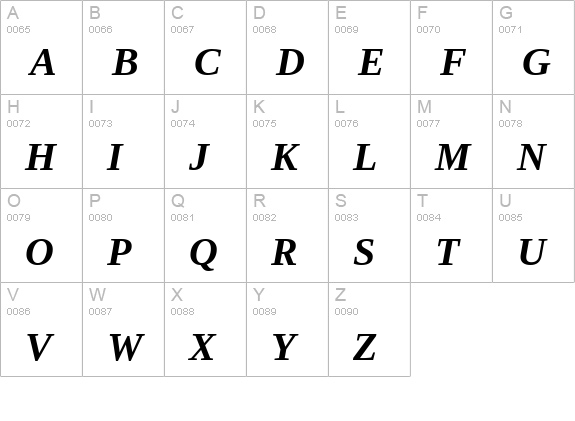
Liberation Serif Bold Italic Font Details
Liberation Serif Bold Italic is a strong, high-contrast, italic variant in the Liberation typeface family \xE2\x80\x94 well suited to headlines, attention-grabbing titles, and strong calls-to-action.
Liberation Serif Bold Italic font exudes a powerful and elegant presence with its bold and slanted design. The combination of thick strokes and graceful italics adds a touch of sophistication to any text it adorns. Whether used for headings, titles, or body text, Liberation Serif Bold Italic commands attention and conveys a sense of importance. This font is not only visually striking but also versatile, making it suitable for a wide range of design projects. From professional documents to creative endeavors, Liberation Serif Bold Italic adds a sense of authority and style to any text. Best of all, Liberation Serif Bold Italic is available for free download at FontsMarket.com. This means that you can easily access this exceptional font and incorporate it into your projects without any cost. Don't miss out on the opportunity to enhance your designs with the bold and italic beauty of Liberation Serif. Download it today and elevate your typography game to the next level.